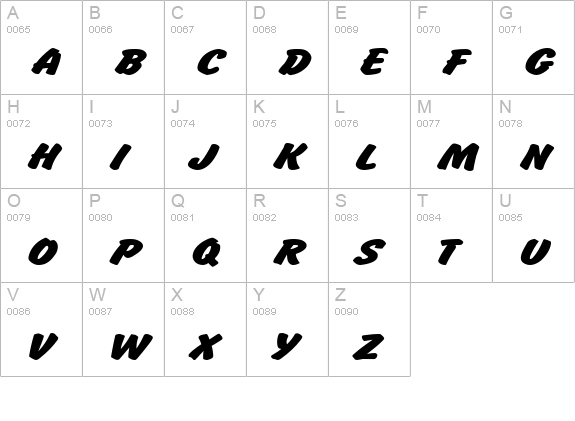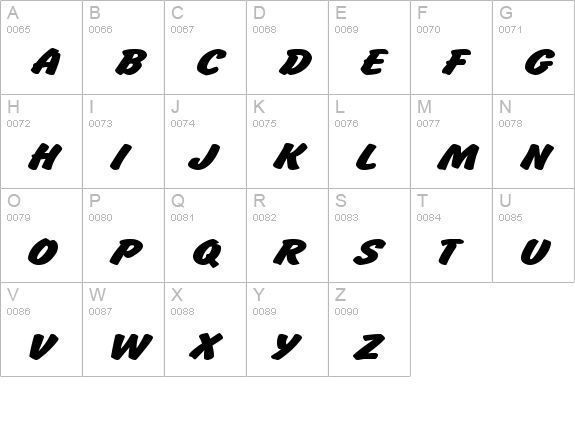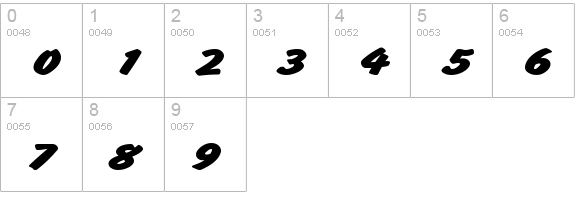
BrushHandExpanded Regular is the standard, neutral variant in the BrushHandExpanded typeface family \xE2\x80\x94 well suited to general body text, paragraphs, and standard typographic work.
BrushHandExpanded Regular font is a versatile and dynamic typeface that exudes a sense of creativity and energy. With its bold strokes and handcrafted feel, this font is perfect for adding a personal touch to your designs. Whether you're working on a poster, logo, or any other project that requires a playful and unique look, BrushHandExpanded Regular has got you covered. One of the best things about BrushHandExpanded Regular font is that it is completely free to download at FontsMarket.com. This means you can easily access this stylish and expressive typeface without any cost, making it a valuable addition to your font collection. Don't miss out on the opportunity to enhance your designs with the charm and character of BrushHandExpanded Regular font - download it now and let your creativity shine!